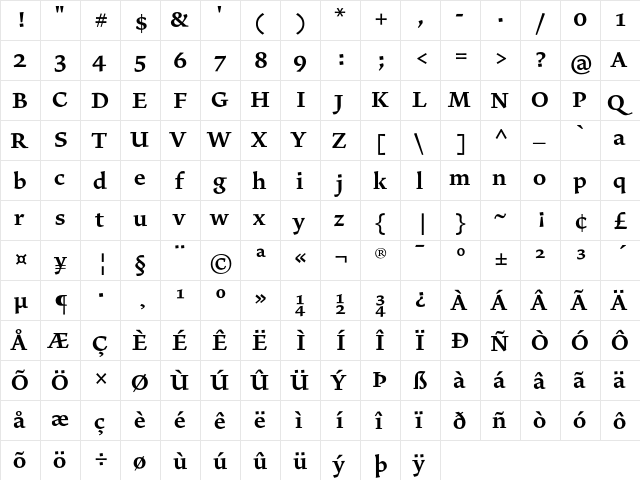
Alisal Regular
Alisal Regular Font Details
Design Context for Alisal Typeface
Alisal is a composed and adaptable typeface that performs quietly and consistently across a wide range of design contexts.